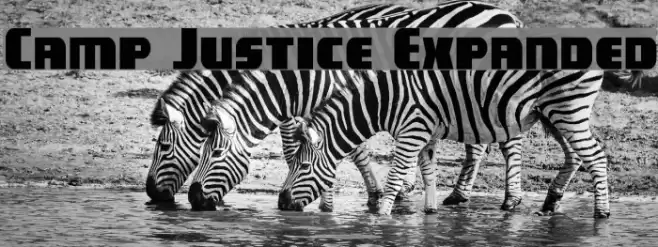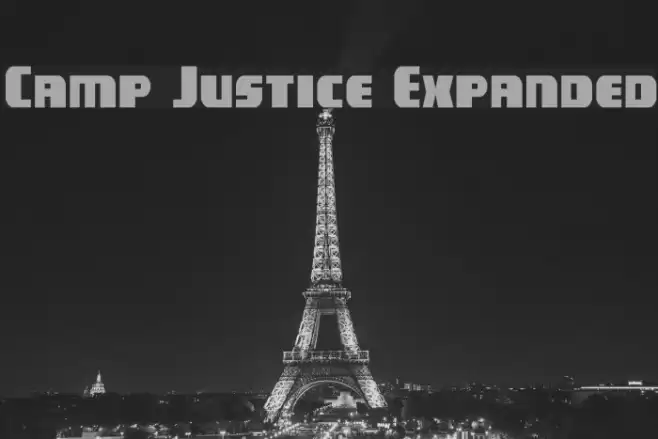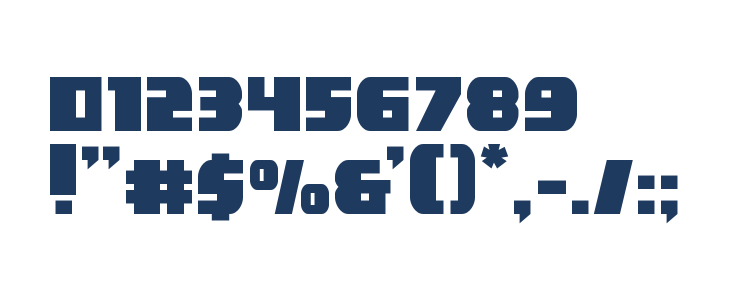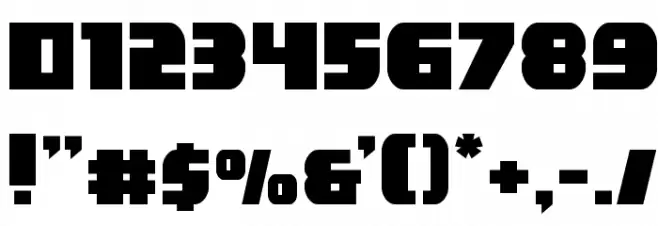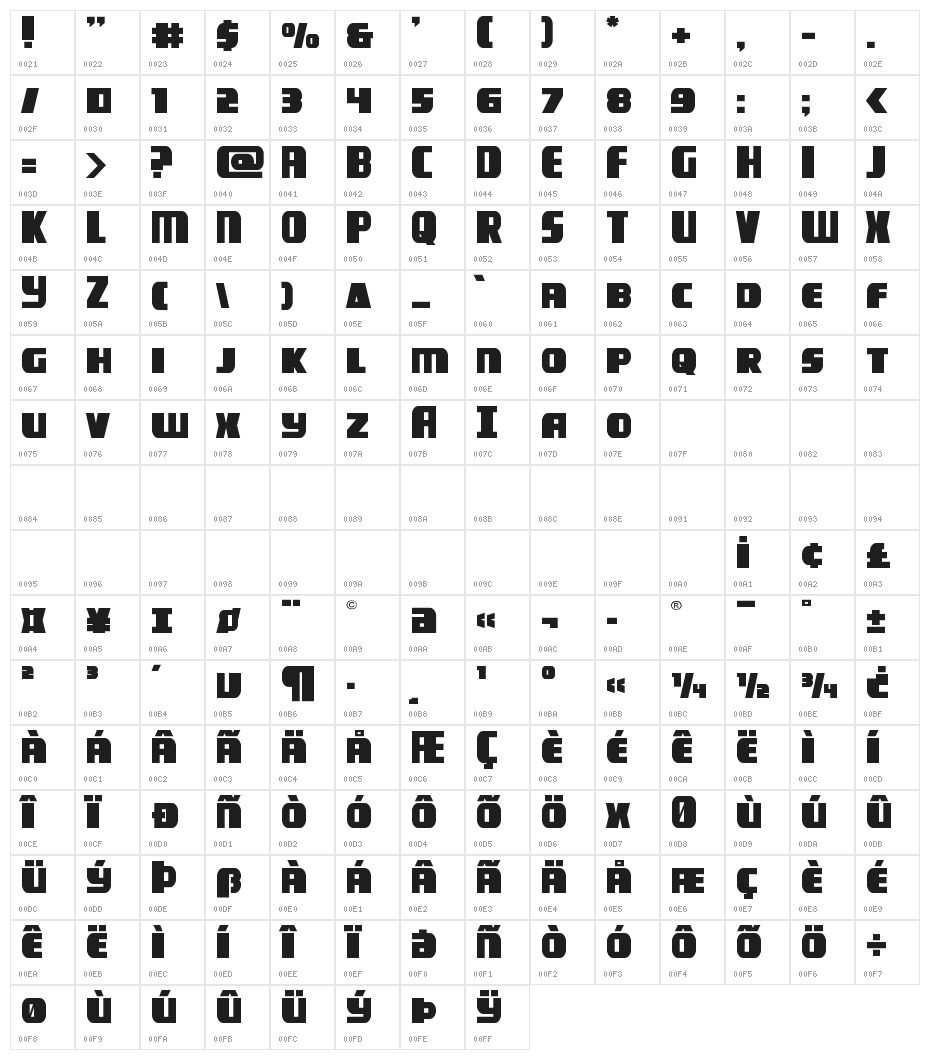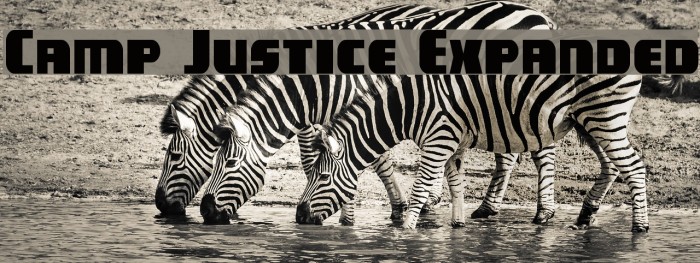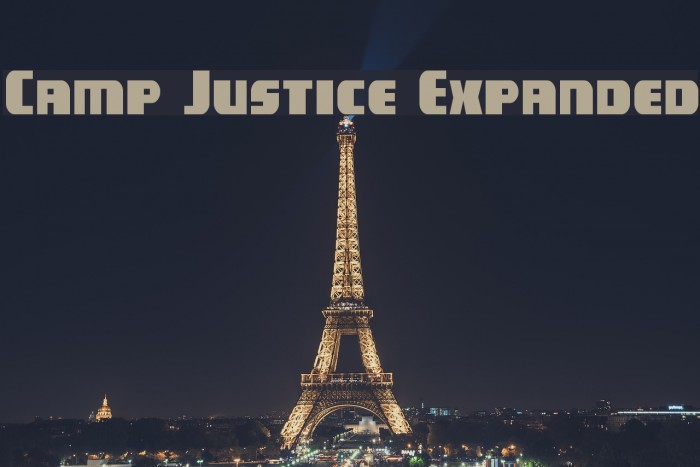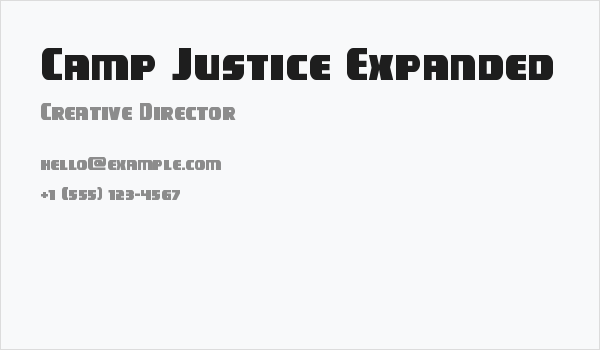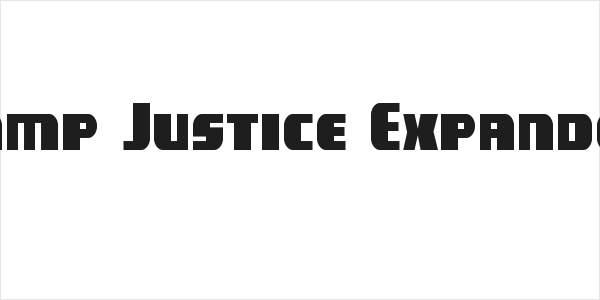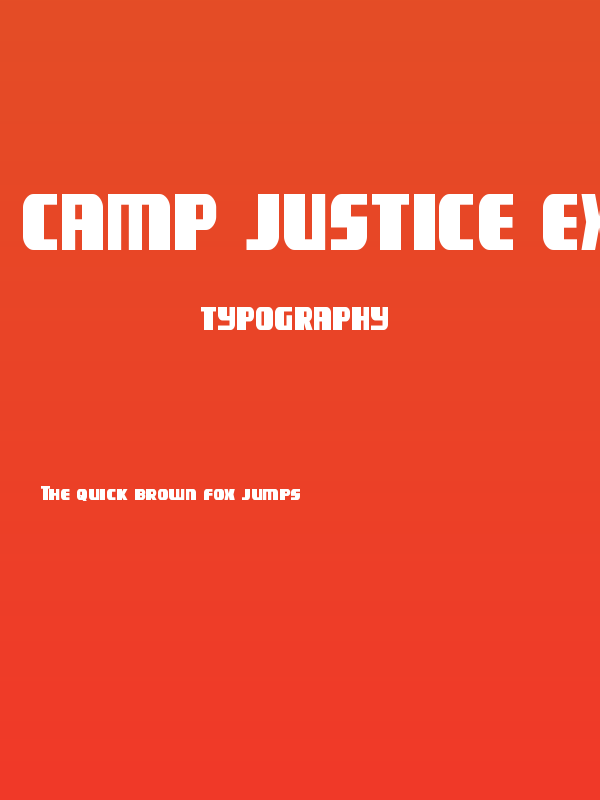
Camp Justice Expanded Font
Camp Justice Expanded Description
This font features a bold and robust design with a strong presence. The characters are wide and blocky, giving it a commanding and impactful appearance. The uppercase and lowercase letters maintain a consistent width, contributing to a uniform look. The numerals are equally bold, ensuring they stand out clearly. Special characters are designed with the same boldness, making them easily recognizable. The overall style is modern and assertive, suitable for projects that require a strong visual impact.
A bold, wide, and modern font with a strong, impactful presence from Uncategorized fonts.
- Proposed Projects: Ideal for headlines, posters, branding, and any design that requires a bold statement.